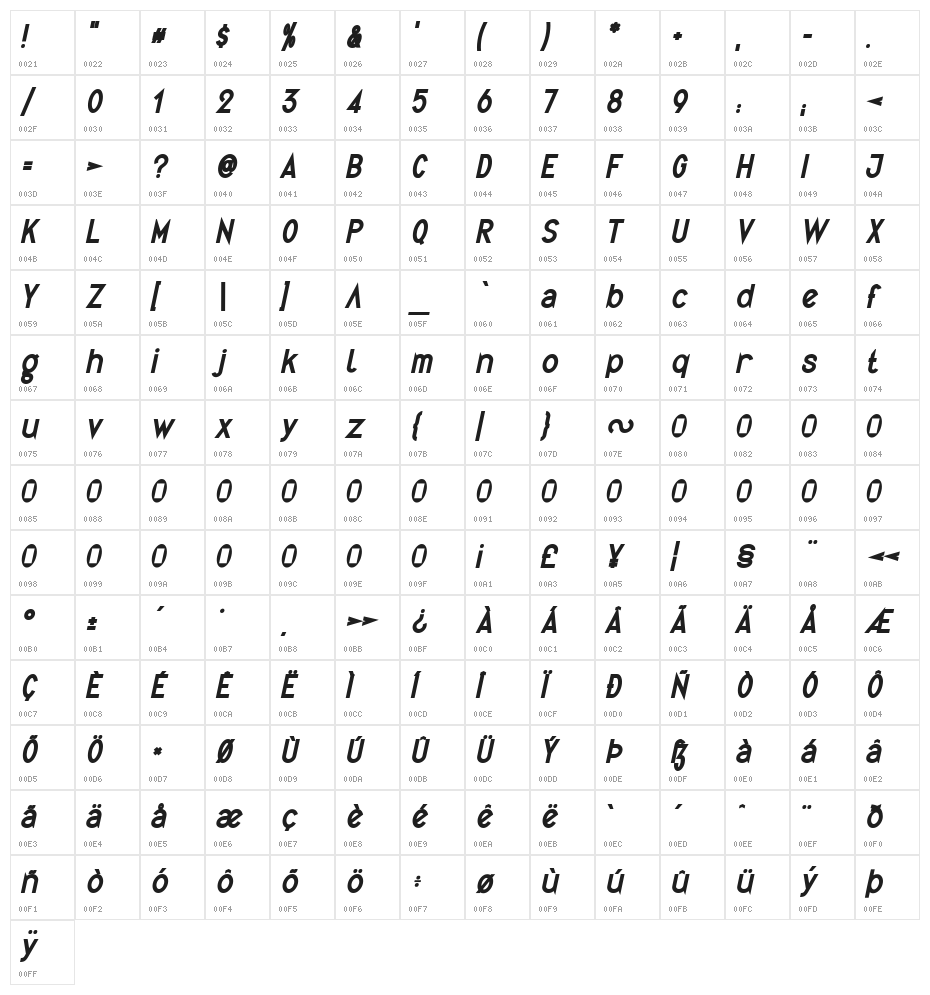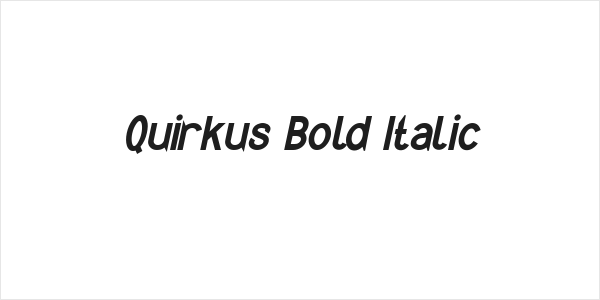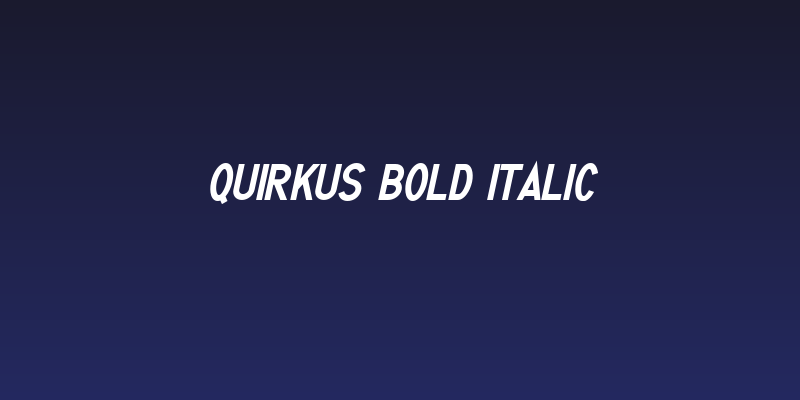
Quirkus Bold Italic Font
Quirkus Bold Italic Description
This font features a bold and italicized style, characterized by its dynamic and energetic slant. The uppercase letters are robust and commanding, while the lowercase letters maintain a consistent flow with a slight forward tilt, enhancing readability and adding a sense of motion. The numerals are clear and bold, ensuring visibility and impact. Special characters are designed with the same boldness and slant, providing a cohesive look across all glyphs. The overall design is modern and assertive, making it suitable for projects that require a strong visual presence.
| Use Case | Headlines, Logos, Advertising |
| Proposed Projects | Ideal for branding, advertising, headlines, and any project needing a bold statement. |